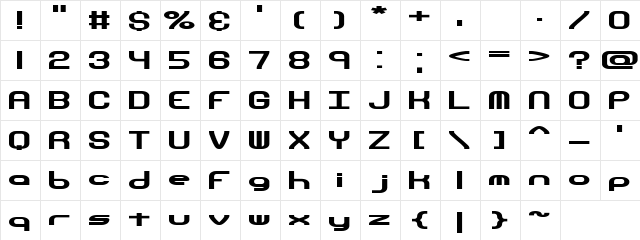
Raindeers Regular
Design Context for Raindeers Typeface
Raindeers offers clean, dependable letterforms without strong stylistic allegiance, making it a practical choice for designers who need flexibility.
Pro Tip: Use Raindeers in both headline and body roles to test its range before committing to a single application.